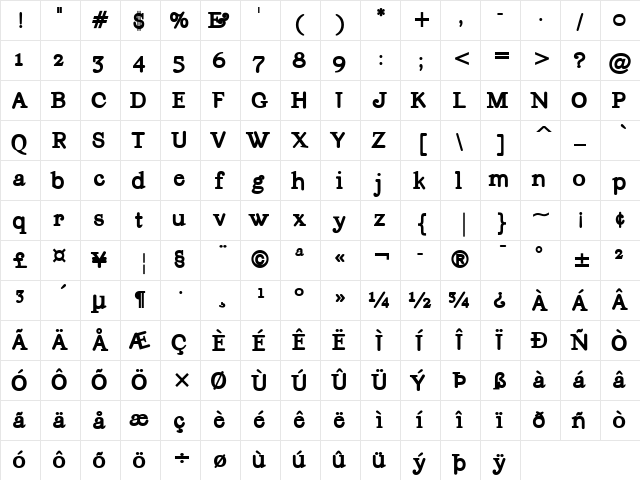
Andromeda ExtraBold Free Font
Andromeda ExtraBold
Design Context for Andromeda
Andromeda is a composed and adaptable typeface that performs quietly and consistently across a wide range of design contexts. Its bold stroke weight gives it real presence on the page.